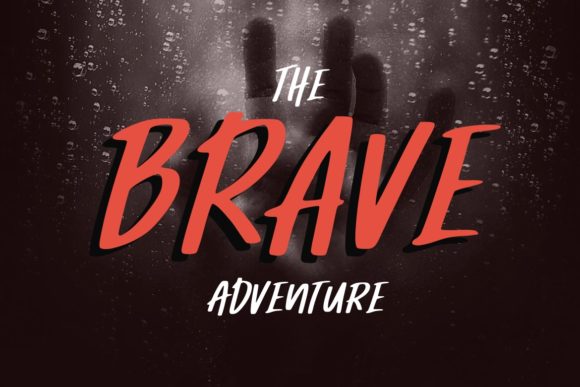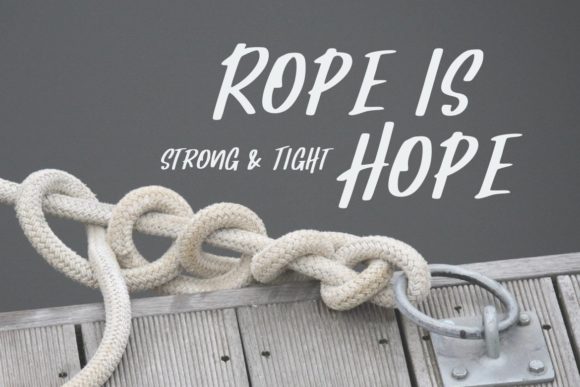
Introduction to Marked Font
As designers, we’ve all been there – staring at a blank canvas, trying to come up with the perfect concept for our next project. It’s those moments of creative block that can be the most frustrating, but also the most exciting. And that’s exactly when you need a design resource that can spark some inspiration. Enter the Marked Font – a stunning display font that’s sure to add charm and character to your next creative project.
With its striking design and high-quality feel, the Marked Font is perfect for a wide range of projects, from logos and posters to t-shirt designs and more. And the best part? It’s available for a free download, making it an accessible design resource for designers of all levels. Whether you’re working on a commercial project or a personal passion project, the Marked Font is a valuable addition to your design toolkit.
- Unique, distinctive design makes it a standout for creative projects
Honest Review: Marked Font
I recently came across the Marked Font, and I must say it’s a game-changer for my creative projects. The font is a high-quality design resource that can elevate any visual content.
Here’s what works well:
- ✨ The font has a unique aesthetic that sets it apart from more common fonts. It’s perfect for designers looking to add a touch of sophistication to their work.
- ⚠️ The font’s versatility is limited to a specific style, which may not appeal to designers with more traditional tastes.
Overall, I’m impressed with the Marked Font. It’s a solid addition to any designer’s toolkit, and its high quality is evident in its crisp lines and modern aesthetic.
The Marked Font is a high-quality design resource perfect for creative projects. With a free download option, you can enhance your presentations, designs, and documents with a unique and eye-catching font.
The Marked Font is ideal for creative projects, such as presentations, designs, and documents. You can use it to add a touch of elegance and sophistication to your work. Some common use cases include:
- Presentation titles and headings
- Document headings and subheadings
- Design elements, such as logos and graphics